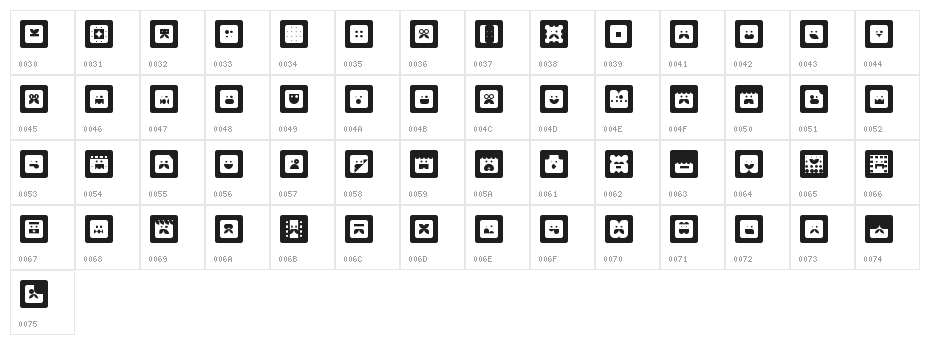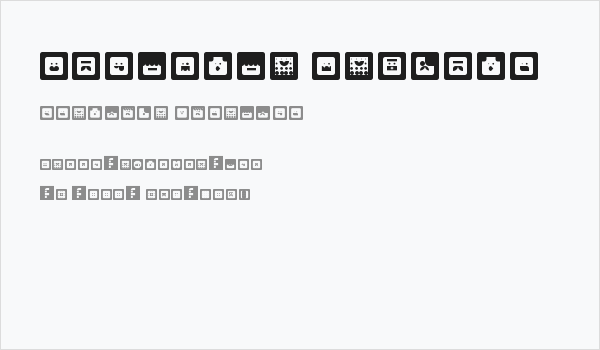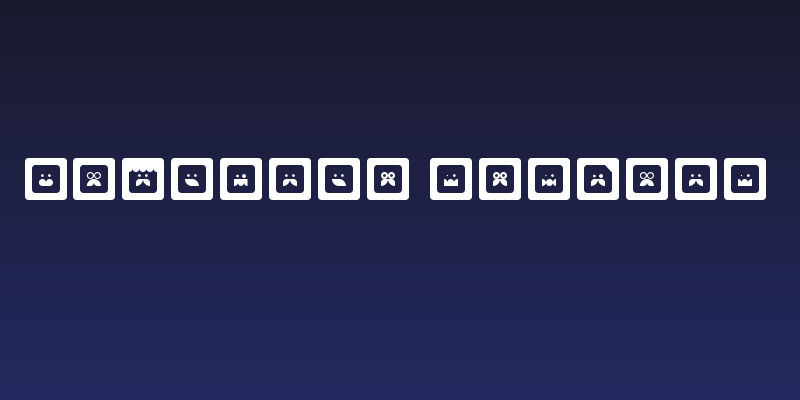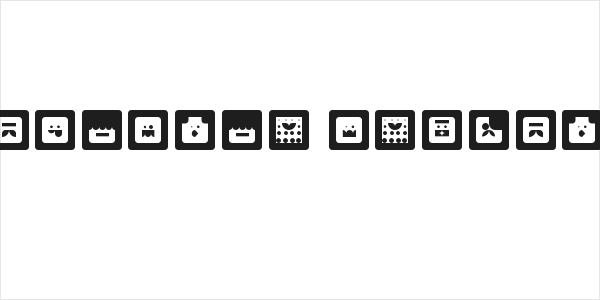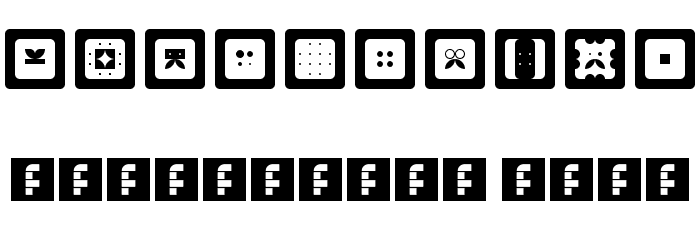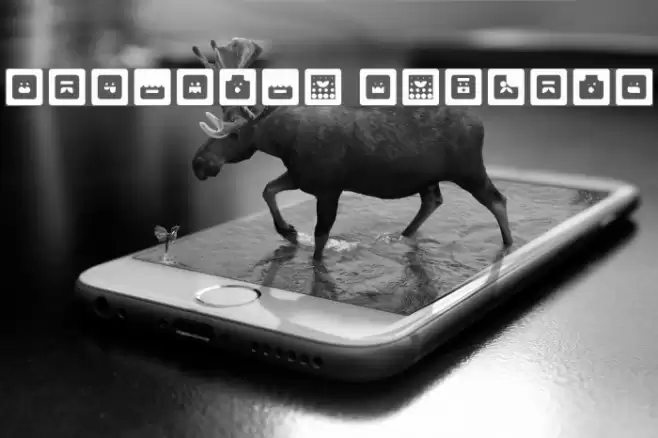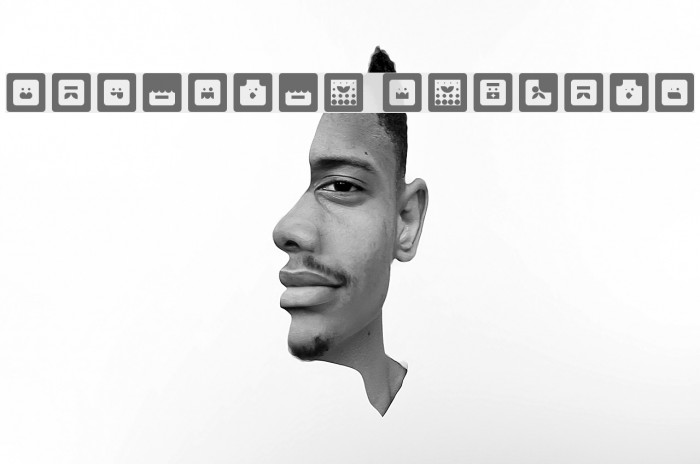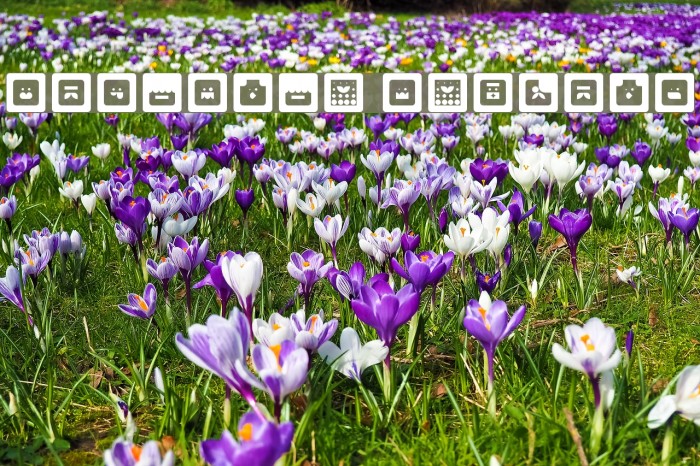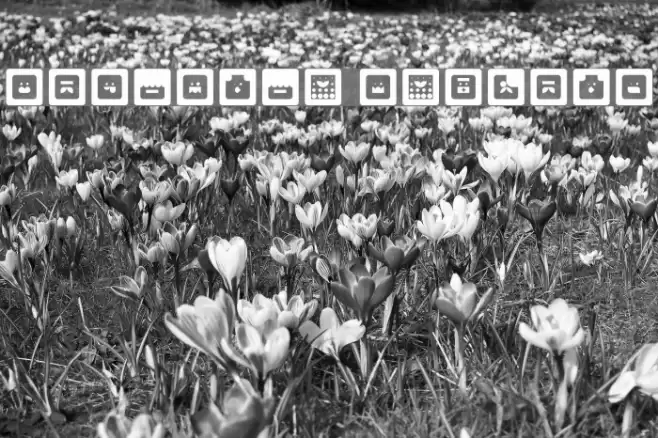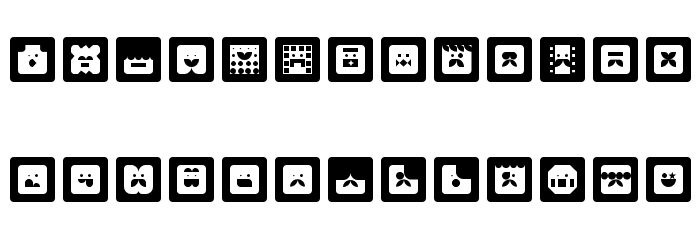
BlocFace Regular Font
| समग्र शैली | Decorative |
| उपयोग का मामला | Logos, Posters, Creative Projects |
| सुझाए गए प्रोजेक्ट | Ideal for children's books, playful branding, game design, or any project requiring a fun and engaging typeface. |